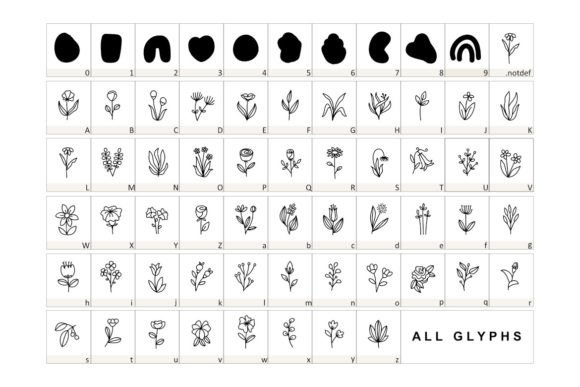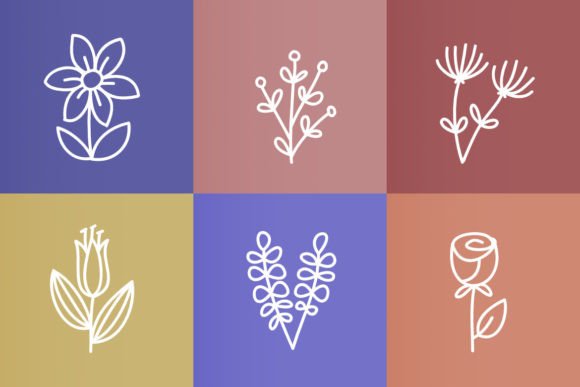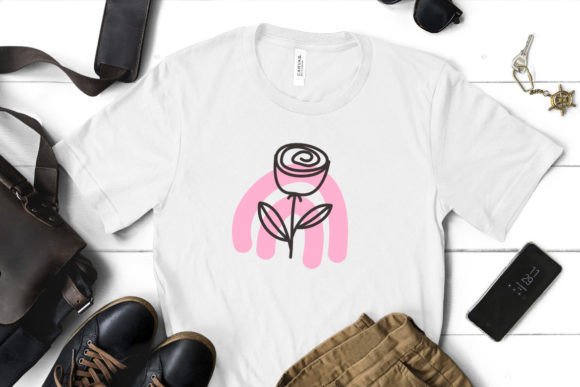
Introducing Boho Floral Font: The Perfect Addition to Your Design Arsenal
Are you a designer, crafter, or DIY enthusiast looking for a unique and versatile font to elevate your projects? Look no further than Boho Floral Font, a charming dingbats font that’s perfect for a wide range of applications. In this article, we’ll dive into the world of Boho Floral Font, exploring its features, uses, and benefits, and show you how it can add a touch of bohemian flair to your designs.
What is Boho Floral Font?
Boho Floral Font is a delightful dingbats font that’s designed to bring a touch of whimsy and elegance to your projects. The font features a beautiful collection of floral motifs, leaves, and other decorative elements that are perfect for adding a bohemian touch to your designs. With its unique and intricate designs, Boho Floral Font is sure to make your projects stand out from the crowd.
Features of Boho Floral Font
So, what makes Boho Floral Font so special? Here are just a few of its key features:
- Cute and Useful Designs: Boho Floral Font features a wide range of adorable and functional designs that are perfect for a variety of projects.
- Versatile: This font is perfect for use in a wide range of projects, from stickers and posters to t-shirts, cards, and apparel graphics.
- Easy to Use: Boho Floral Font is incredibly easy to use, even for those with limited design experience.
- Scalable: The font is highly scalable, making it perfect for use in both small and large designs.
Uses for Boho Floral Font
Boho Floral Font is an incredibly versatile font that can be used in a wide range of projects, including:
- Stickers: Add a touch of bohemian flair to your stickers with Boho Floral Font.
- Posters: Create eye-catching posters with Boho Floral Font’s unique and intricate designs.
- T-Shirts: Add a touch of personality to your t-shirts with Boho Floral Font’s adorable designs.
- Cards: Create beautiful and unique cards with Boho Floral Font’s floral motifs and decorative elements.
- Apparel Graphics: Use Boho Floral Font to create stunning apparel graphics that are sure to turn heads.
Benefits of Using Boho Floral Font
So, why should you choose Boho Floral Font for your next project? Here are just a few of the benefits of using this amazing font:
- Adds a Touch of Whimsy: Boho Floral Font adds a touch of whimsy and elegance to your designs, making them stand out from the crowd.
- Increases Creativity: With its unique and intricate designs, Boho Floral Font is sure to inspire your creativity and take your designs to the next level.
- Perfect for Boho-Chic Designs: If you’re going for a boho-chic look, Boho Floral Font is the perfect choice.
- Easy to Pair with Other Fonts: Boho Floral Font pairs perfectly with a wide range of other fonts, making it easy to create stunning designs.
Tips for Using Boho Floral Font
Here are a few tips for getting the most out of Boho Floral Font:
- Experiment with Different Sizes: Don’t be afraid to experiment with different sizes and scales to find the perfect look for your design.
- Pair with Other Fonts: Pair Boho Floral Font with other fonts to create stunning and unique designs.
- Use in Combination with Other Design Elements: Use Boho Floral Font in combination with other design elements, such as images and shapes, to create visually appealing designs.
| Font Name | Boho Floral Font |
In conclusion, Boho Floral Font is a cute and useful dingbats font that’s perfect for a wide variety of projects. With its unique and intricate designs, Boho Floral Font is sure to add a touch of bohemian flair to your designs. Whether you’re a designer, crafter, or DIY enthusiast, Boho Floral Font is a must-have addition to your design arsenal. So why wait? Download Boho Floral Font today and start creating stunning designs that are sure to turn heads!